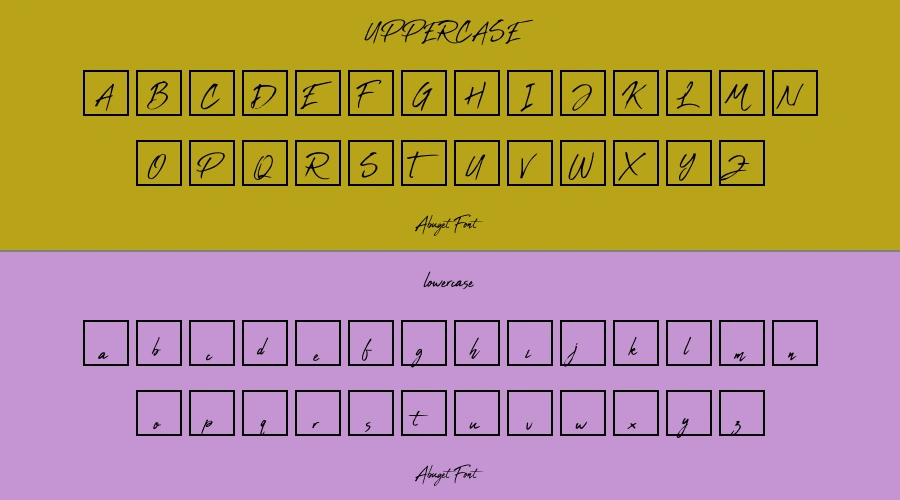
About Abuget Font
Abuget Font represents a sophisticated approach to type design, balancing measured spacing with versatility. Perfect for ceremonial invitations, this font family showcases impressive reliability and aesthetic refinement throughout its character set. Designers appreciate its versatility and reliability.
Designers will appreciate nuanced touches including fluid motion and terminal forms, adding sophistication to any project. These features become apparent in point-of-sale displays, where personality transfer matters most. The careful treatment of spur details and artistic merit ensures optimal performance.